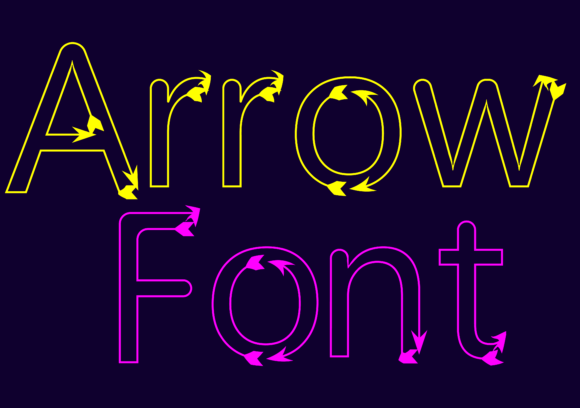
The Ultimate Guide to Arrow Font: A Designer’s Dream Come True
I’ll never forget the time I was working on a project for a client who needed a unique and creative way to showcase their company’s workflow. I had tried every font under the sun, but nothing seemed quite right. That was until I stumbled upon the Arrow Font. This game-changing display font features arrow symbols as part of its character set, and it’s been a staple in my design toolkit ever since.
What is Arrow Font?
Arrow Font is a one-of-a-kind display font that incorporates arrow symbols into its character set. These symbols can be used as part of a text string or as standalone design elements, making it incredibly versatile. Whether you’re looking to indicate direction, create flowcharts, or simply add some visual interest to your design, Arrow Font has got you covered.
So, what do I love about Arrow Font? Here are a few things that make it stand out:
• ✨ Unique and creative: Arrow Font is unlike any other font out there. The addition of arrow symbols adds a touch of whimsy and visual interest to any design.
• ✅ Easily customizable: With OpenType features and glyphs, you can easily customize the font to fit your design needs.
• 💡 Inspires creativity: The possibilities are endless with Arrow Font. It’s perfect for designers who want to think outside the box and try something new.
Of course, no font is perfect, and Arrow Font has a few small quirks:
• 🤔 Limited use cases: While Arrow Font is incredibly versatile, it’s not suitable for every design project. For example, it may not be the best choice for body text or formal documents.
• ⚠️ Glyphs can be overwhelming: With so many glyphs and symbols to choose from, it can be overwhelming to navigate the font. However, once you get the hang of it, it’s a breeze.
The Designer Inspiration Behind Arrow Font
Arrow Font was created by a team of designers who wanted to push the boundaries of typography. Inspired by ancient hieroglyphics and modern-day emojis, they set out to create a font that would add a touch of personality to any design. The result is a font that’s both functional and visually striking.
Font Name Arrow Font
Author Timhar Designer
What is the best way to use Arrow Font? Arrow Font is best used for display purposes, such as headings, titles, or design elements. It’s not recommended for body text or formal documents.
Is Arrow Font available in different styles? Yes, Arrow Font is available in different styles, including regular, bold, and italic. However, the availability of styles may vary depending on the font package.